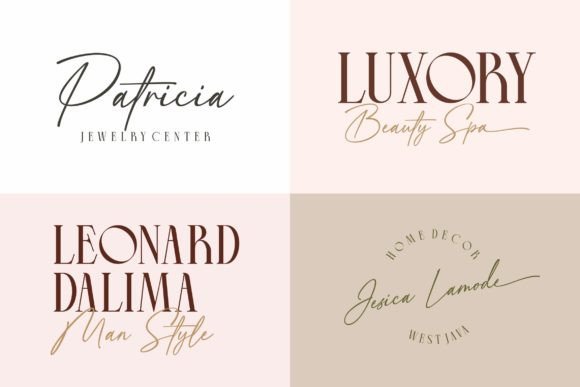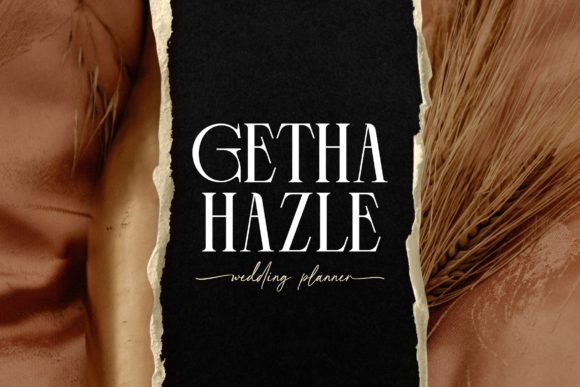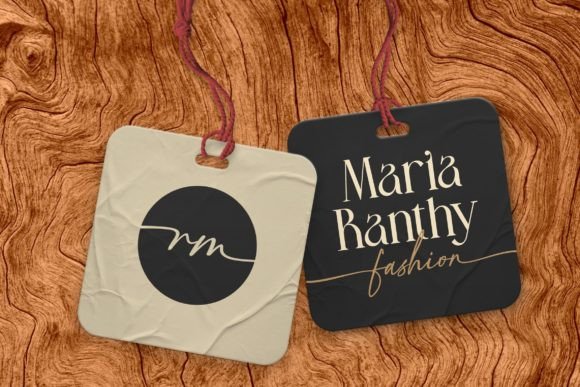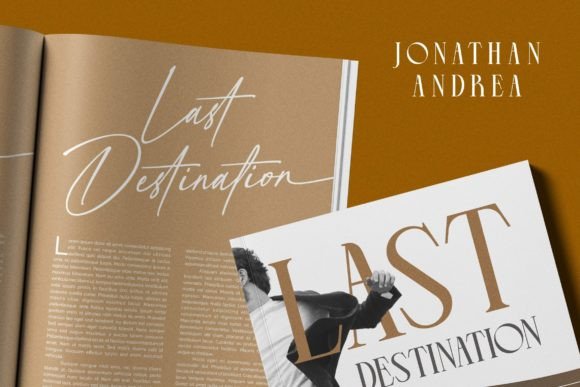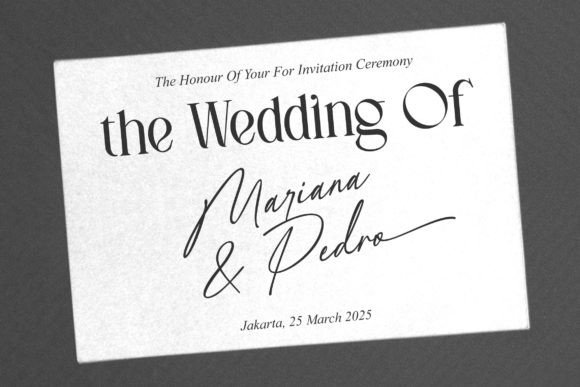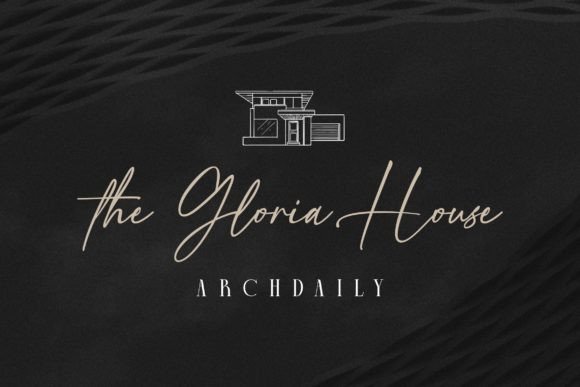
Introducing Dear Magnolia Font: Elevate Your Designs with Elegance and Simplicity
In the world of typography, finding the perfect font that balances uniqueness with simplicity can be a daunting task. However, if you’re looking for a stylish and modern font that can elevate your designs, look no further than Dear Magnolia. This beautiful font combines the best of both worlds, offering a distinctive flair without being overly complex. In this article, we’ll dive into the features and benefits of Dear Magnolia Font, and explore how it can be used to enhance your branding, editorial layouts, and visual compositions.
What is Dear Magnolia Font?
Dear Magnolia is a stylish font that features half-serifs, giving it a unique and modern look. The half-serifs add a touch of elegance and sophistication, making it perfect for designs that require a bit of flair. The font’s minimalist approach ensures that it’s not overly complex, making it versatile and easy to use. Whether you’re designing a logo, creating a magazine header, or crafting a beautiful wedding invitation, Dear Magnolia Font is an excellent choice.
Key Features of Dear Magnolia Font
- Unique Half-Serif Design: The half-serifs in Dear Magnolia Font give it a distinctive look that sets it apart from other fonts.
- Minimalist Approach: The font’s simple and clean design makes it easy to use and versatile.
- Elegant and Sophisticated: The font’s elegant and sophisticated look makes it perfect for high-end branding and editorial layouts.
- Highly Legible: The font is highly legible, making it suitable for body text and headlines.
Uses of Dear Magnolia Font
Dear Magnolia Font is a versatile font that can be used for a variety of design projects. Here are some of the ways you can use this beautiful font:
- Modern Branding: Use Dear Magnolia Font to create a unique and memorable brand identity.
- Editorial Layouts: The font’s elegant and sophisticated look makes it perfect for magazine headers, article titles, and other editorial layouts.
- Sleek Visual Compositions: Use Dear Magnolia Font to create stunning visual compositions that are both elegant and simple.
- Headlines and Logos: The font’s unique half-serif design makes it perfect for headlines and logos that require a bit of flair.
- Packaging and Advertising: Use Dear Magnolia Font to create eye-catching packaging and advertising materials.
- Weddings and Special Events: The font’s elegant and sophisticated look makes it perfect for wedding invitations, gift tags, and other special event materials.
Benefits of Using Dear Magnolia Font
There are many benefits to using Dear Magnolia Font in your designs. Here are some of the advantages of using this beautiful font:
- Unique and Memorable: The font’s unique half-serif design makes it memorable and distinctive.
- Elegant and Sophisticated: The font’s elegant and sophisticated look makes it perfect for high-end branding and editorial layouts.
- Versatile: The font is highly versatile and can be used for a variety of design projects.
- Easy to Read: The font is highly legible, making it suitable for body text and headlines.
Dear Magnolia Font is a beautiful and versatile font that can elevate your designs with elegance and simplicity. Its unique half-serif design, minimalist approach, and elegant look make it perfect for modern branding, editorial layouts, and sleek visual compositions. Whether you’re a designer, crafter, or DIY enthusiast, Dear Magnolia Font is an excellent choice for any design project. With its numerous benefits and uses, it’s no wonder that Dear Magnolia Font is becoming a popular choice among designers and crafters.